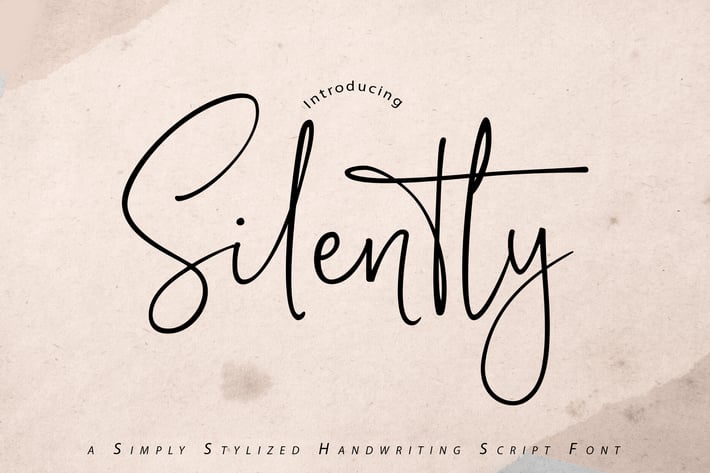
Silently | Handwriting Script Font
Silently | Handwriting Script Font with a calligraphy style, So beautiful on invitation like greeting cards, branding materials, business cards, quotes, posters, and more!